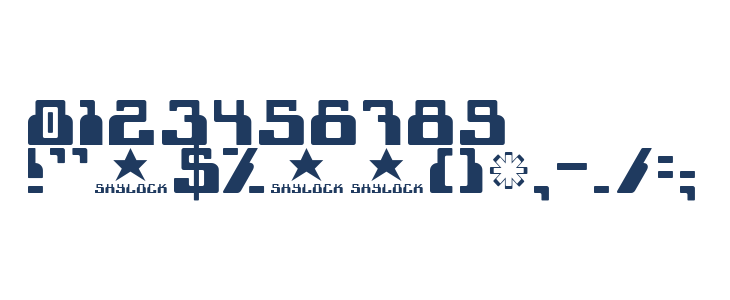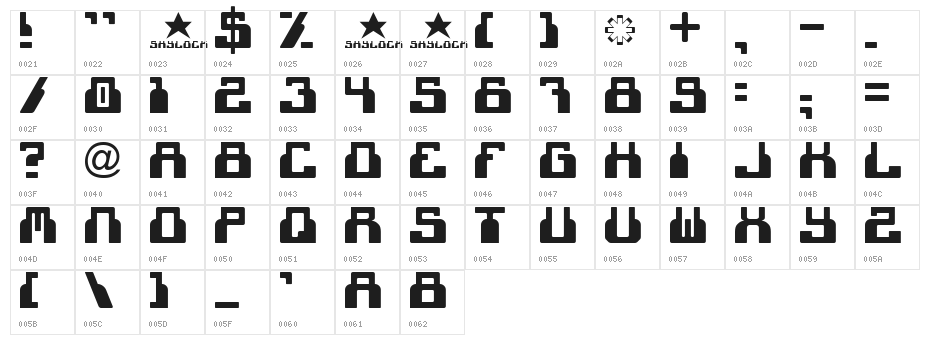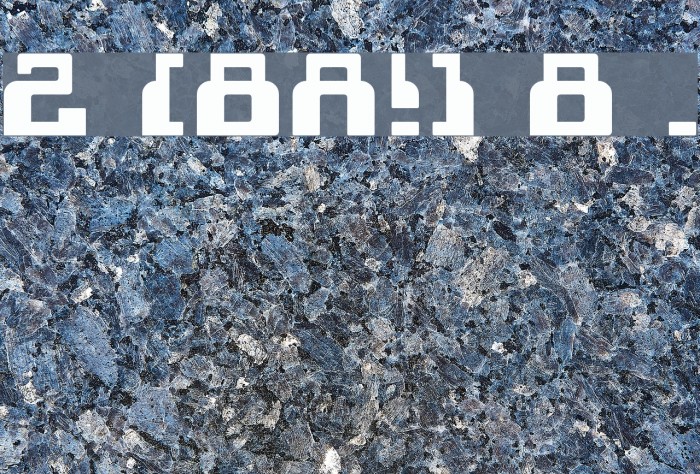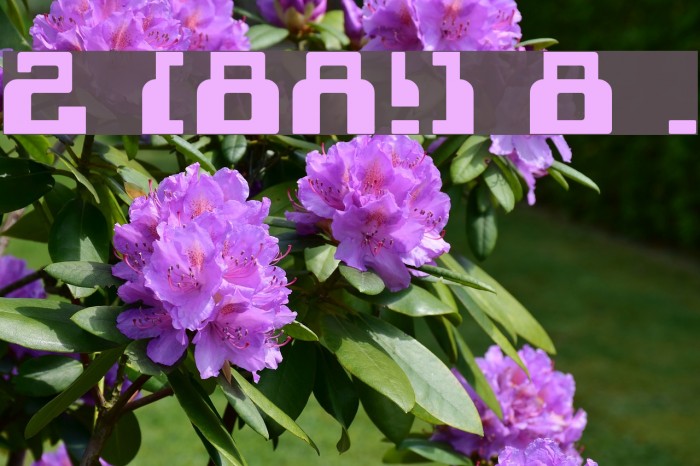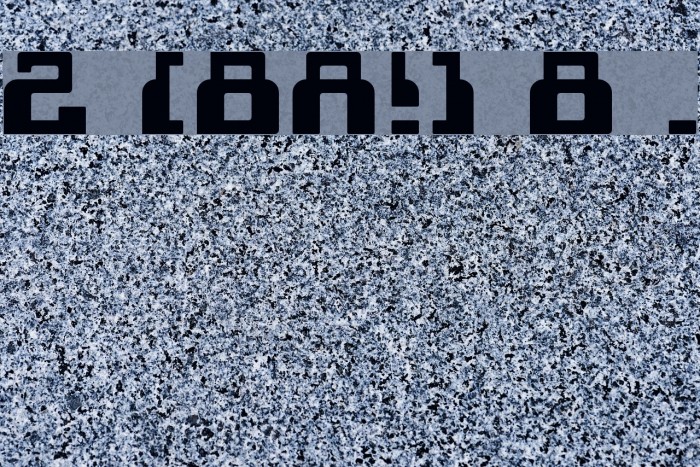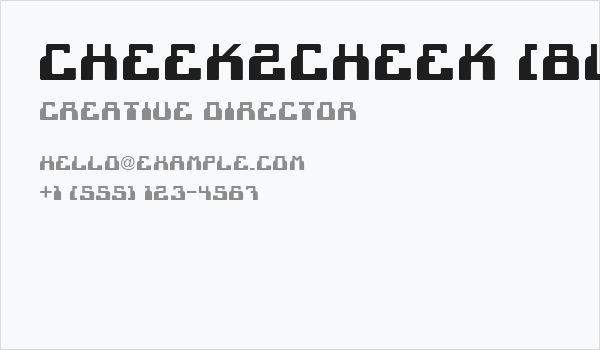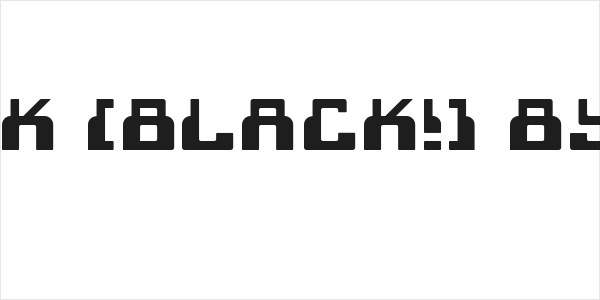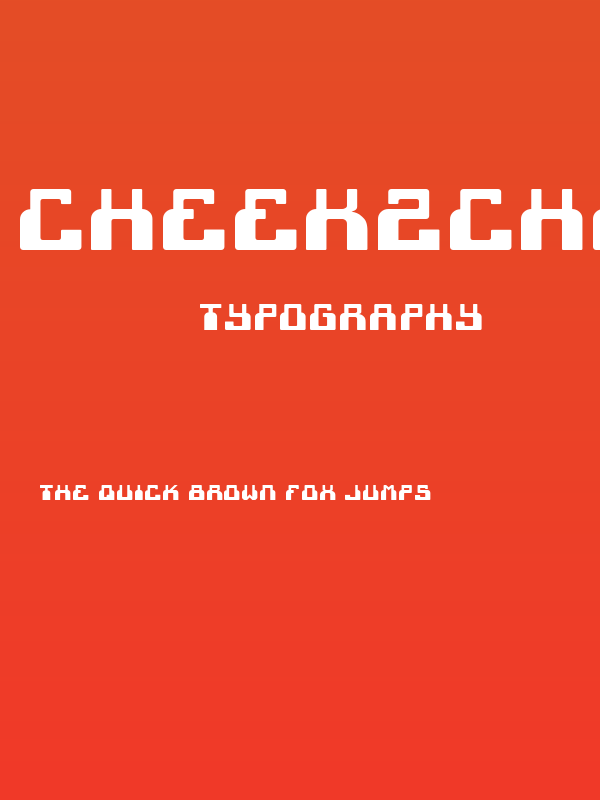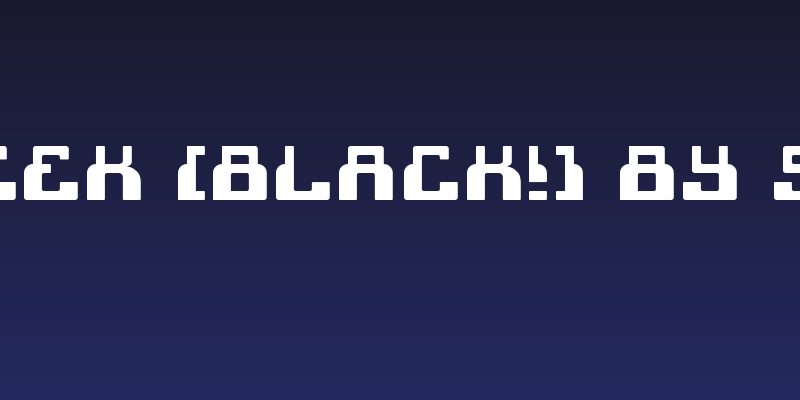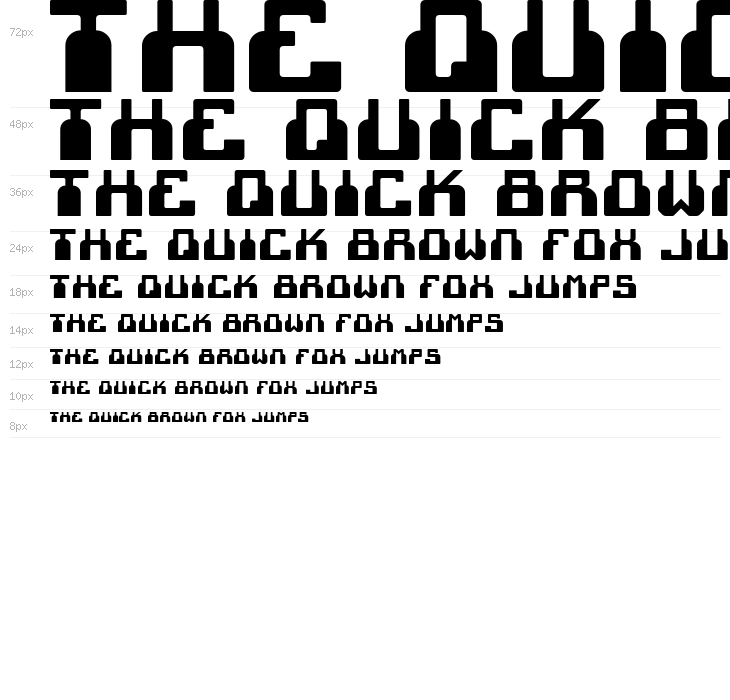
cheek2cheek [black!] by shk.dezign Font
cheek2cheek [black!] by shk.dezign Description
This font features a bold, geometric style with a strong presence. The characters are constructed with thick, block-like shapes, giving them a sturdy and modern appearance. The uppercase and lowercase letters maintain a consistent height, contributing to a uniform look. The numbers and special characters follow the same design principles, ensuring cohesion across all elements. The font's design is reminiscent of industrial or digital aesthetics, making it suitable for projects that require a contemporary and impactful typeface.